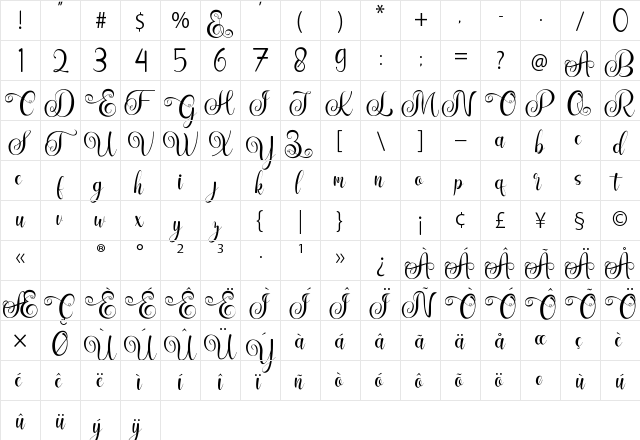
Enjelina Demo Regular Font Preview
Enjelina Demo Regular
Enjelina Demo Regular Font Details
| Foundry | Naharstd |
| Designer | Nanda Hardiansyah | Naharstd |
Design Context for Enjelina Demo Typeface
Enjelina Demo is a composed and adaptable typeface that performs quietly and consistently across a wide range of design contexts.